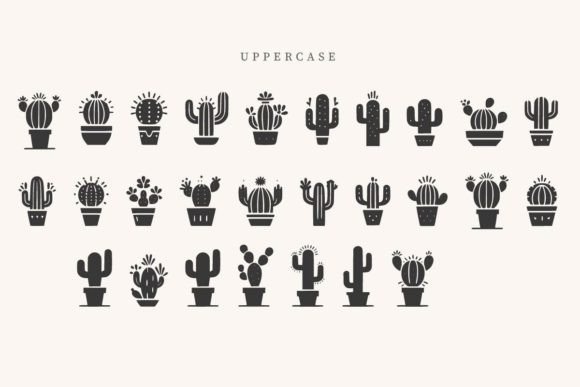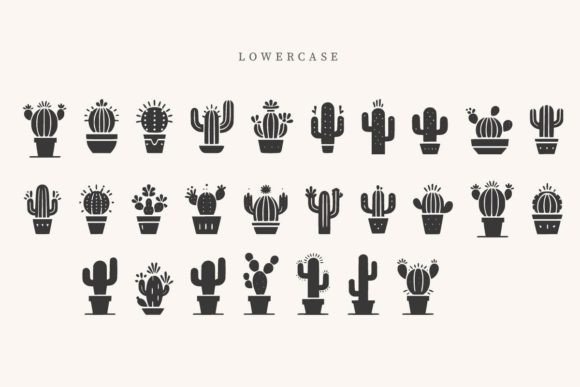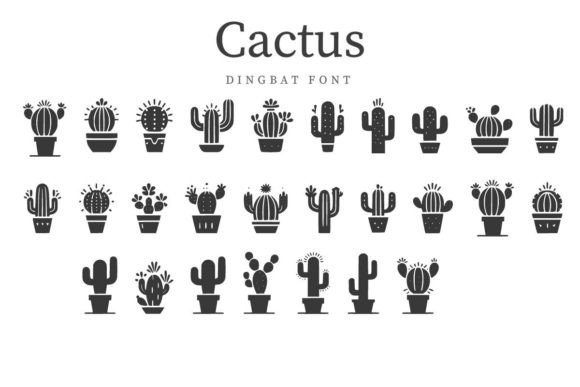
The Prickly yet Perfect Cactus Font: A Designer’s New Best Friend
I still remember the design project that led me to discover the Cactus Font. I was working on a branding project for a trendy new plant shop, and I needed a font that would capture the quirky, playful vibe of their store. I spent hours scouring font websites, but nothing seemed quite right – until I stumbled upon Cactus. Its unique glyph illustrations of cactus silhouettes instantly won me over, and I knew I’d found the perfect fit. In this article, I’ll share my love for the Cactus Font, its features, and how to make the most of it in your designs.
• ✨ Unique and quirky glyph illustrations of cactus silhouettes
• ✅ Perfect for crafts, stickers, decorations, journals, logos, planners, t-shirts, invitations, and greeting cards
• ✅ Easy to use and pairs well with a variety of fonts
• ✅ Great for adding a touch of whimsy to your designs
While I adore the Cactus Font, there are a few things to keep in mind:
• ⚠️ Limited character set: As a dingbat font, Cactus only includes glyph illustrations, not traditional letters and numbers.
• 🤔 May not be suitable for body text: Due to its decorative nature, Cactus is best used as an accent font or for headlines.
The Story Behind Cactus Font
The Cactus Font was designed with creatives in mind. Its creator, a designer with a passion for plants, wanted to create a font that would bring a touch of the desert to any design project. Inspired by the unique shapes and silhouettes of cacti, the font features a range of glyph illustrations that are both playful and elegant.
What type of projects is Cactus Font best suited for? Cactus Font is perfect for crafts, stickers, decorations, journals, logos, planners, t-shirts, invitations, and greeting cards.
Is Cactus Font available in different styles or weights? Cactus Font is a single font with a range of glyph illustrations. However, some font packages may include variations or similar fonts.